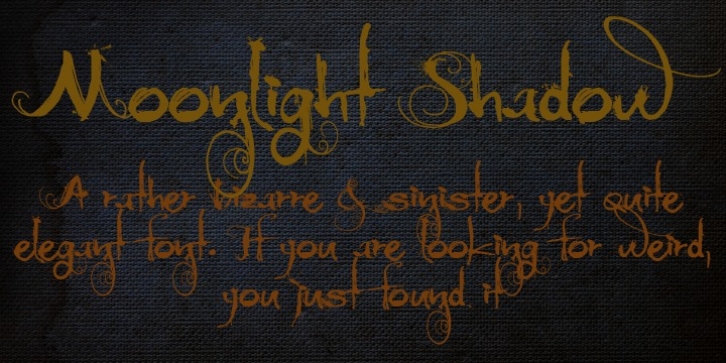
David Kerkhoff
Hanoded
Moonlight Shadow
is a weird, but surprisingly versatile font. It is curly, messy - yet elegant and comes with all the accents.